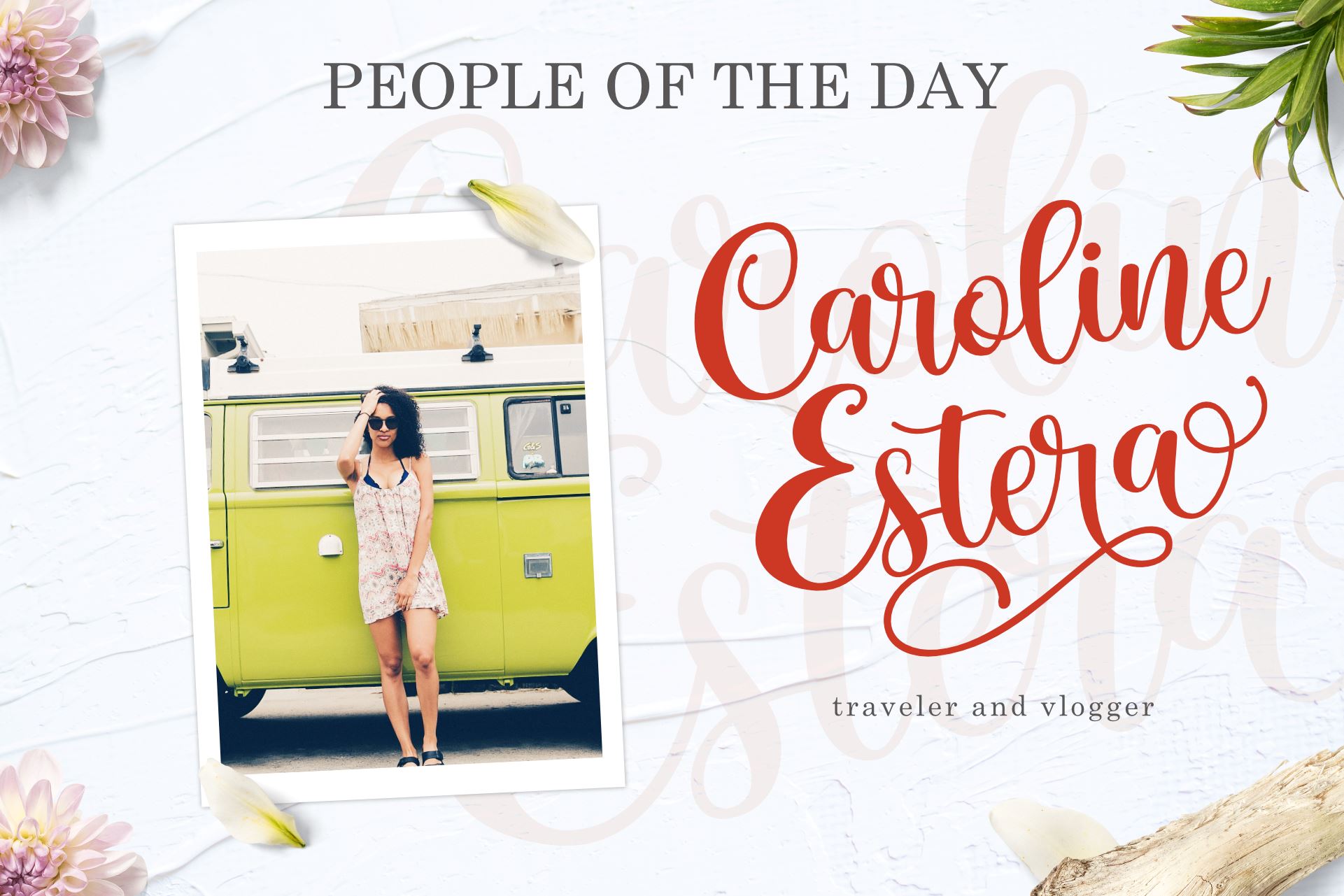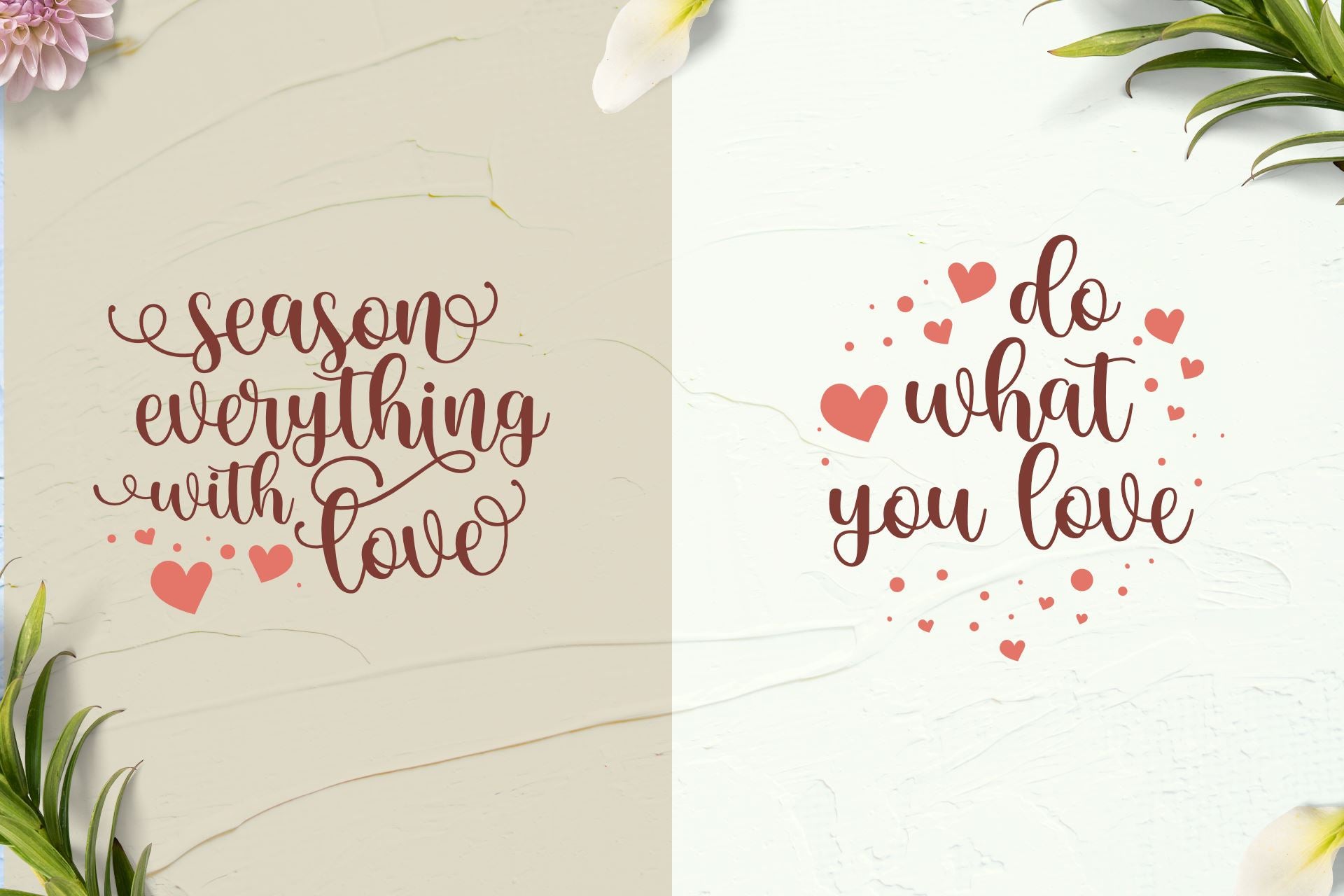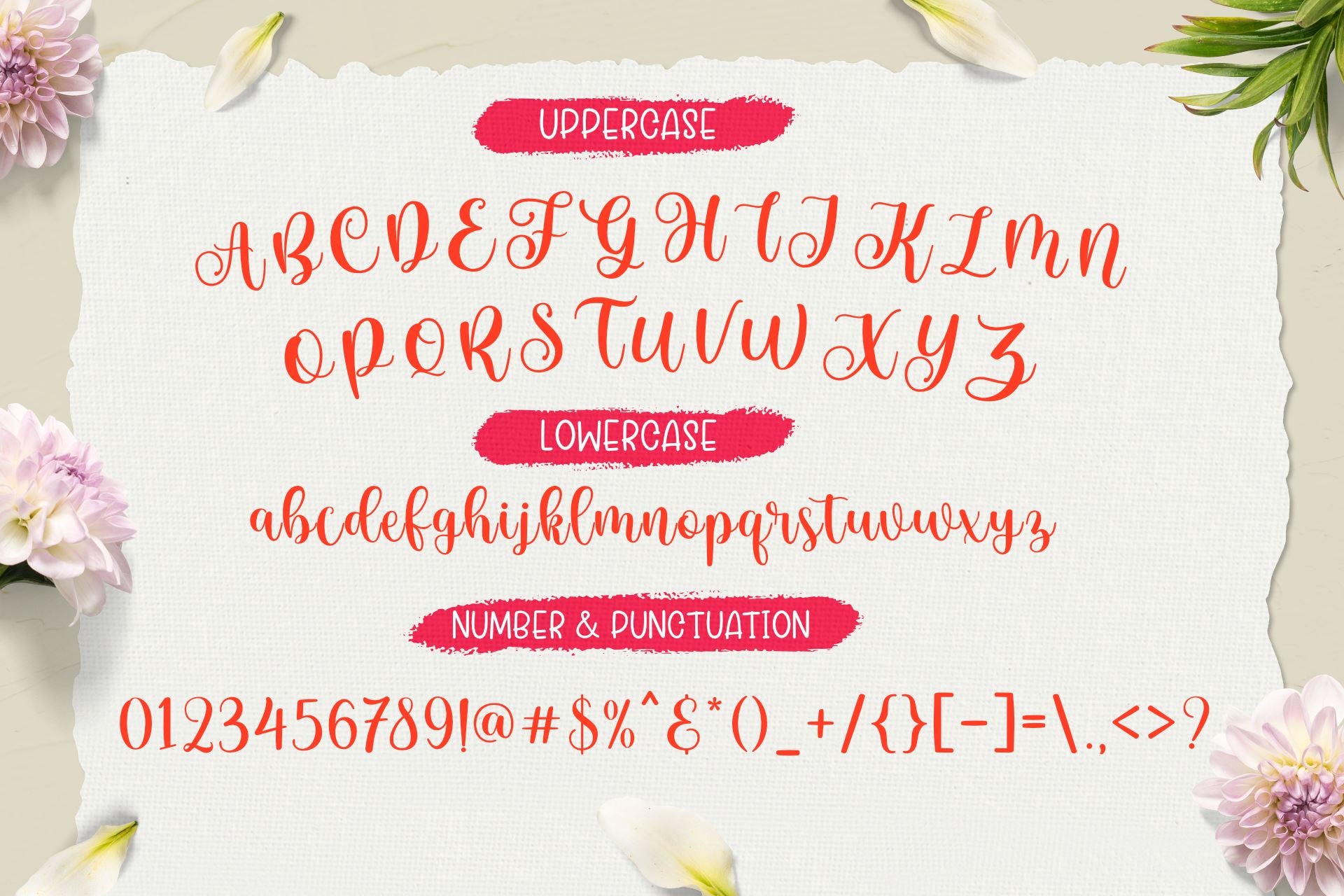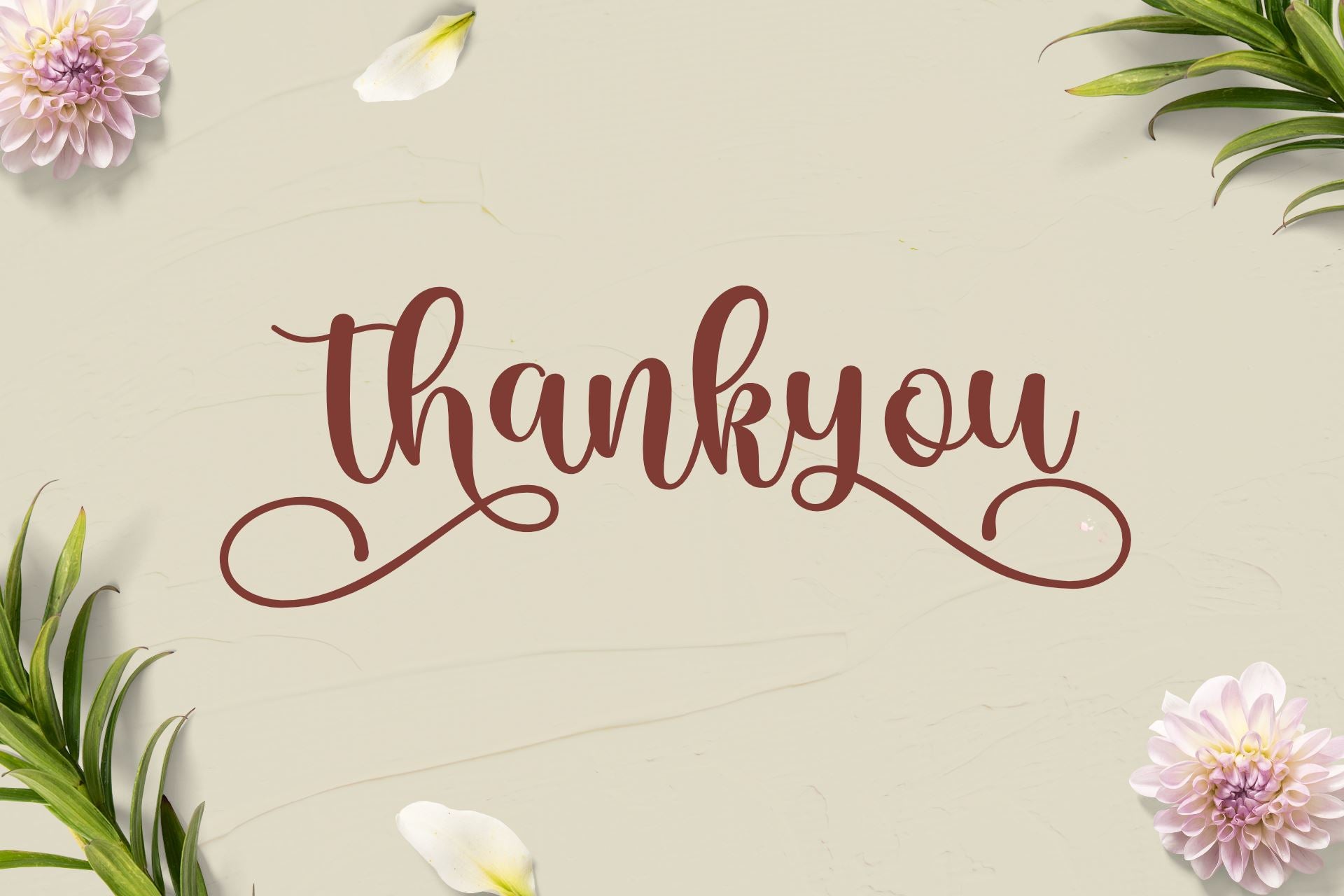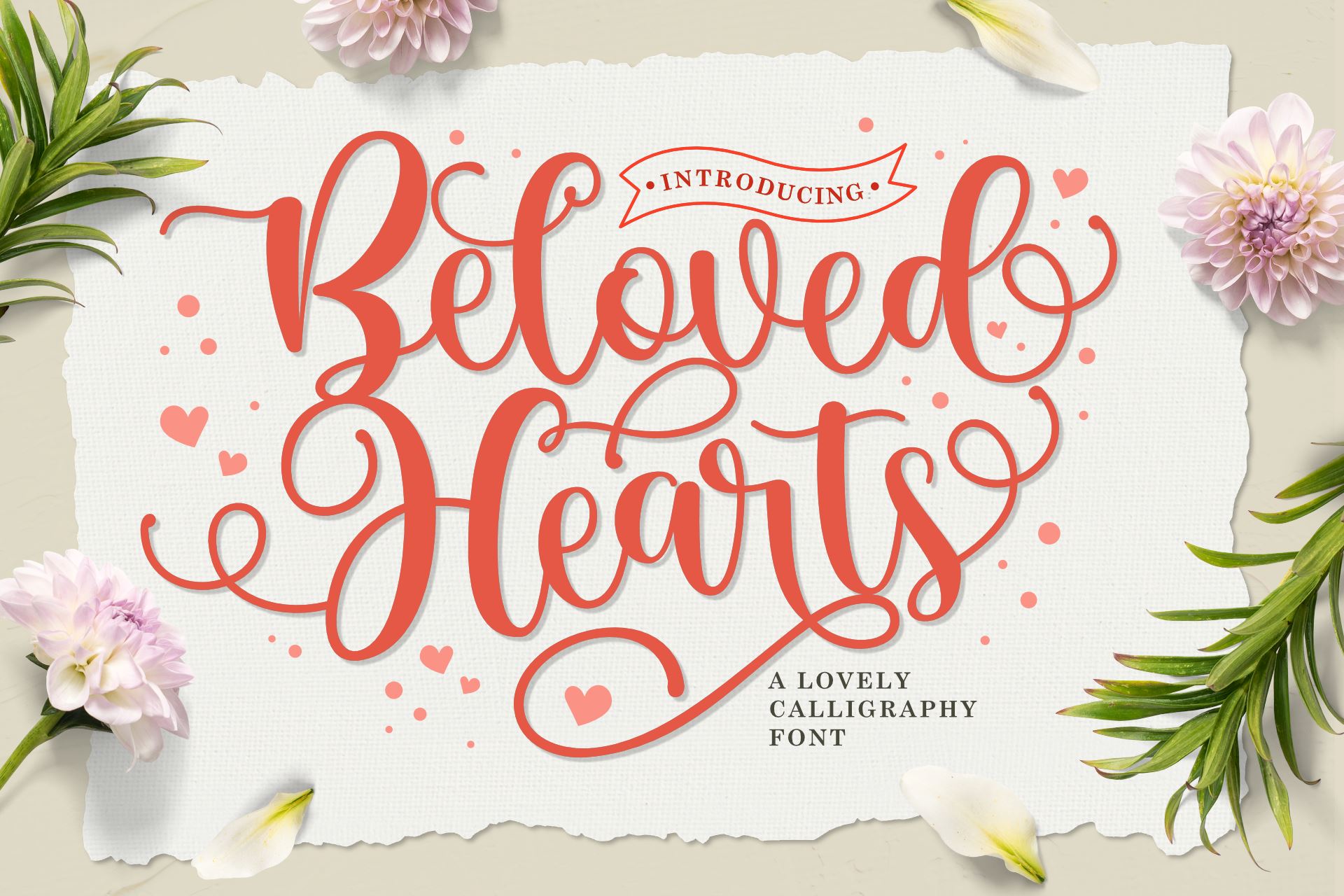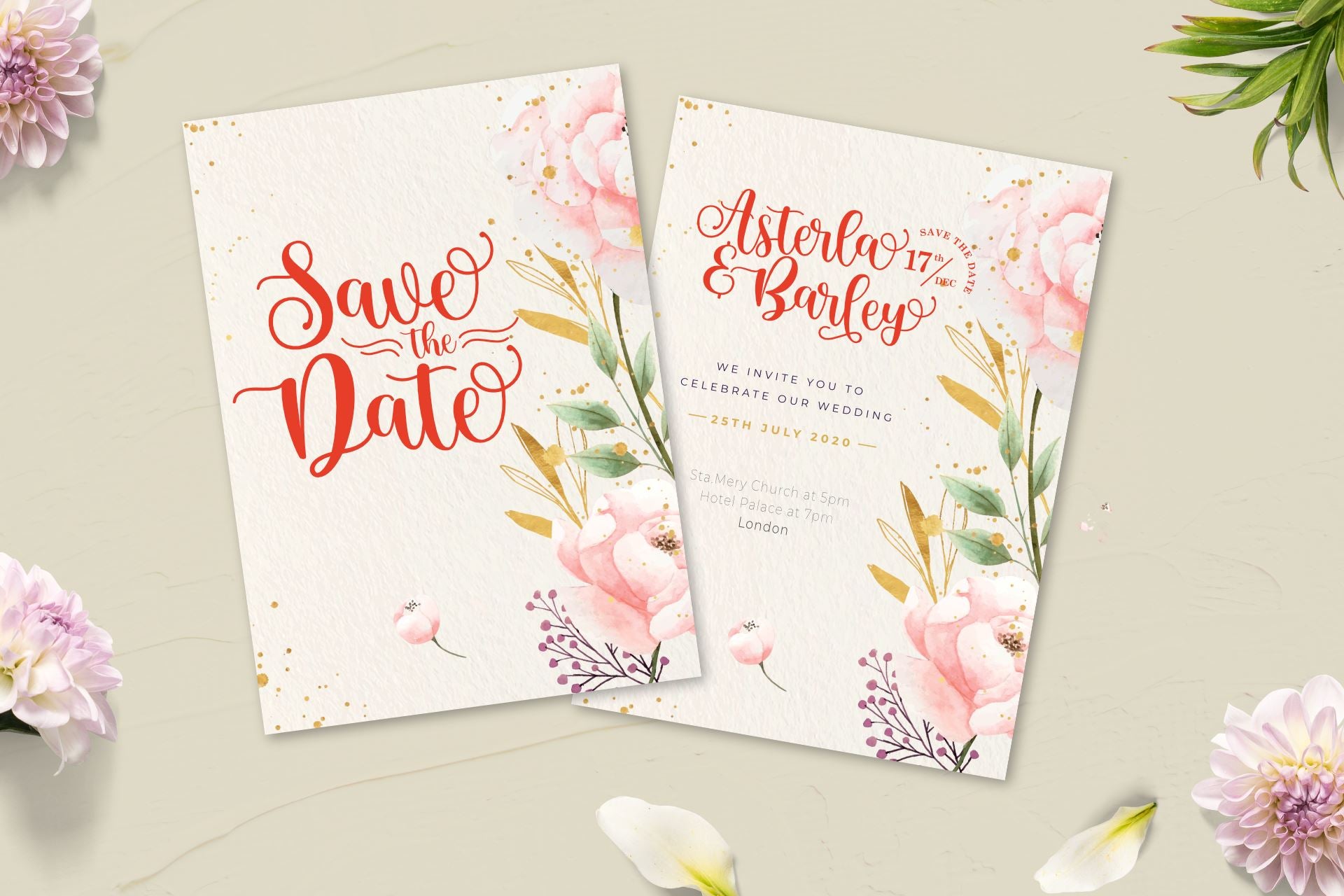
About Beloved Hearts
Beloved Hearts is an elegant and flowing handwritten font. It is PUA encoded which means you can access all of the glyphs and swashes with ease! It features a varying baseline, smooth lines, gorgeous glyphs and stunning alternates. It maintains its classy calligraphic influences while feeling contemporary and fresh. Fall in love with this font and bring your projects to the highest levels! Get this amazing freebie and turn your designs into real works of art!